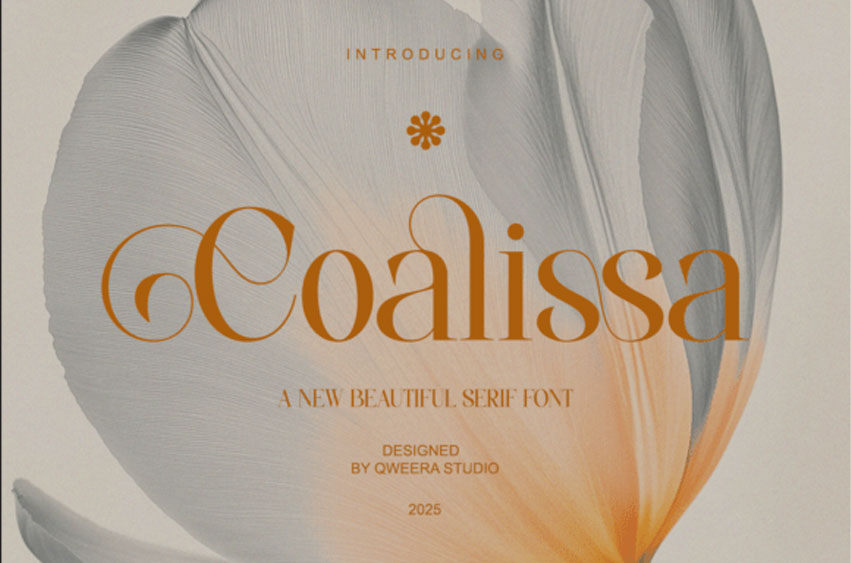
Coalissa Font
Coalissa Font is a modern elegant serif with smooth curves and a refined minimal aesthetic. Perfect for beauty branding, skincare labels, wellness packaging, magazine titles, fashion posters, and boutique logos.
Its clean forms and subtle elegance make every layout look professionally polished and timeless.